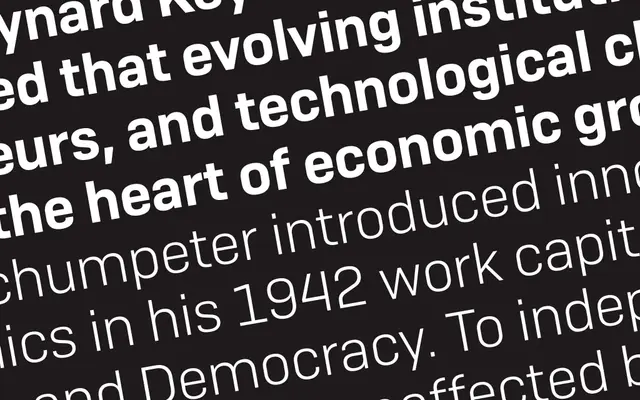
A squarish geometric sans with wider-than-average proportions, designed for versatility across display and text settings.
The last in Emtype's personal series of squarish sans typefaces, Camber takes a geometric foundation and softens it where strict construction would introduce visual noise. Its generous width addresses a gap in wider sans options, and the family spans seven weights from Thin to Bold with matching italics across all 14 styles. Suited to magazine, branding and web work where a clean but not purely mechanical sans is required.
Described as having a geometric base with squarish proportions and clean synthetic design, placing it firmly in the geometric sans category, though human sensitivity is introduced where strict geometry would otherwise falter.